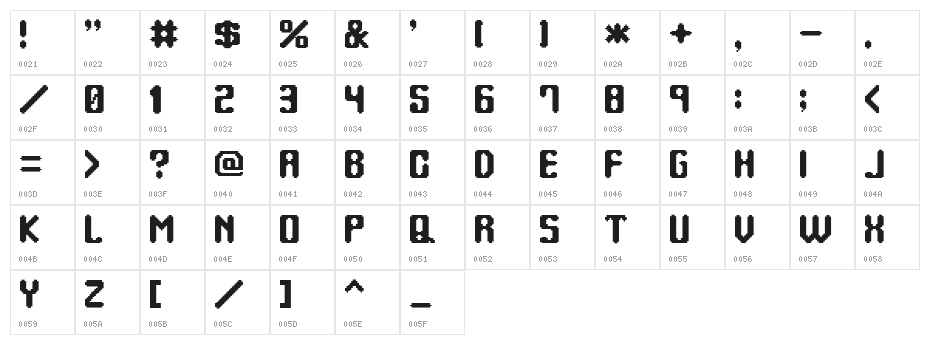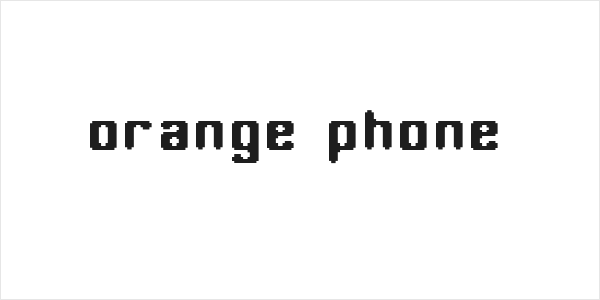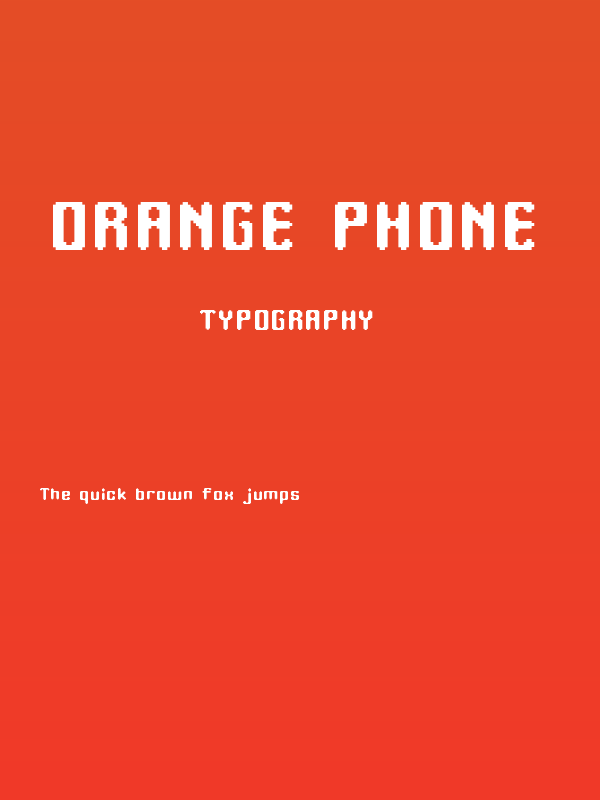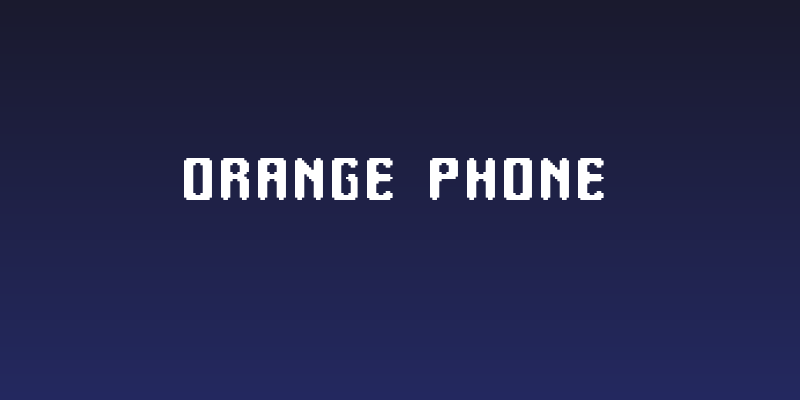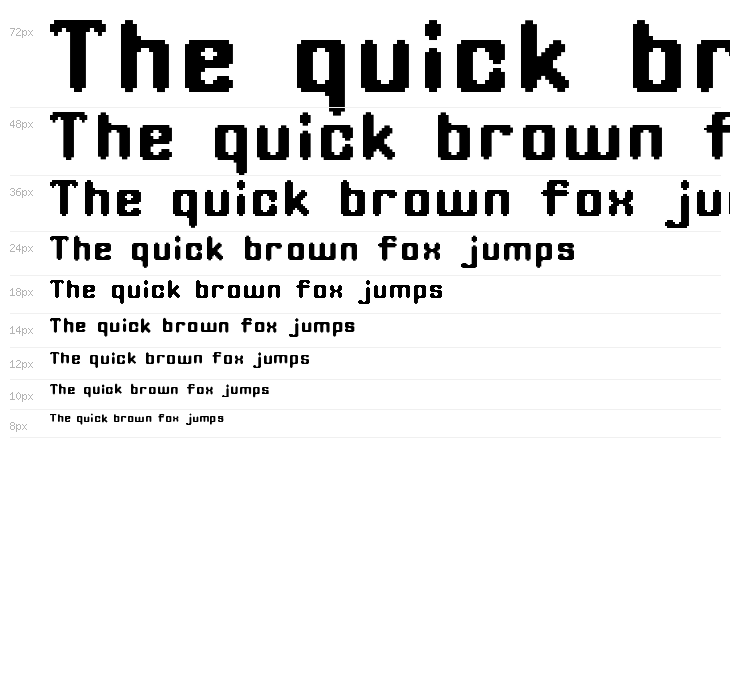
orange phone Font
orange phone Description
This font features a bold, pixelated style reminiscent of early digital displays and retro video games. The characters are blocky with a uniform thickness, creating a strong and impactful visual presence. Each letter and number is distinctly separated, enhancing readability while maintaining a cohesive look. The font includes a full set of uppercase and lowercase letters, numbers, and a variety of special characters. Its geometric design and consistent line weight make it ideal for projects that require a vintage or tech-inspired aesthetic.
Overall StyleVintage
Proposed ProjectsIdeal for video game graphics, retro-themed posters, digital art projects, and tech-oriented branding.